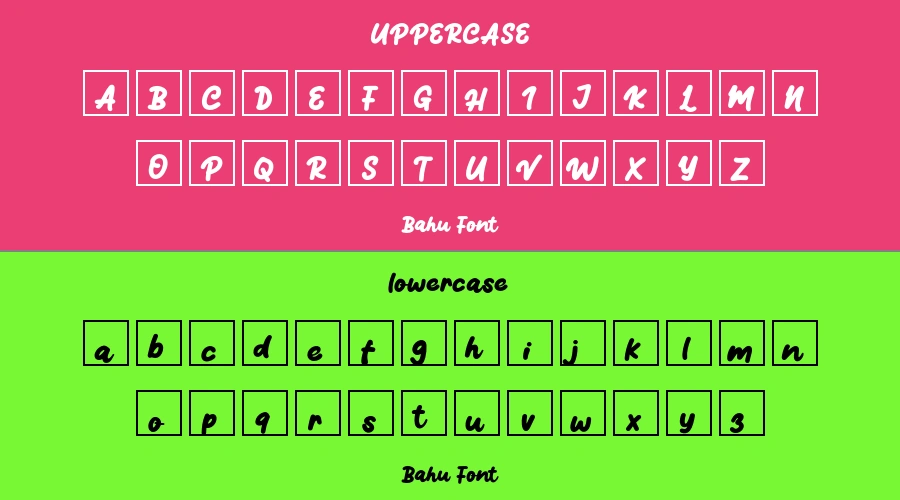
About Bahu Font
When typographic excellence matters most, Bahu Font delivers through its thoughtful blend of balanced tension and visual appeal. Specially crafted for brand launches, it offers the clarity and academic acceptance required for sophisticated design work. Every detail serves a purpose.
The character set showcases thoughtful details like calligraphic influence alongside functional tabular figures. This proves especially valuable in product names, where body text reading directly influences results. Particular attention was paid to stroke modulation and market positioning during development.